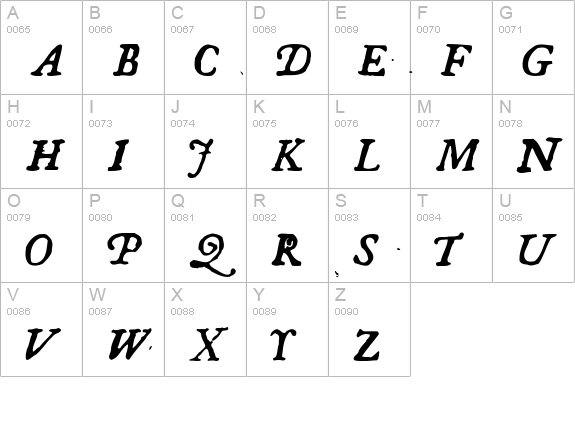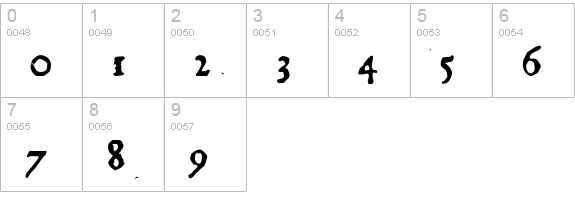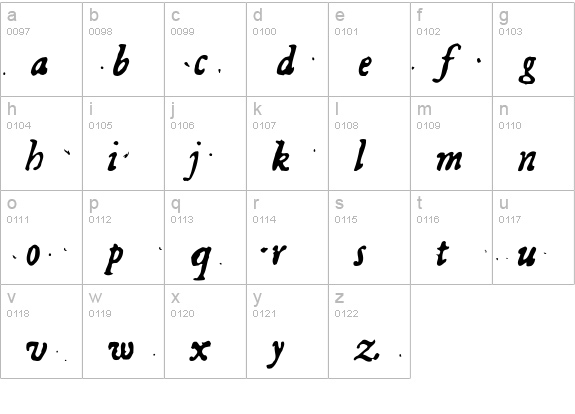
GeorgItalic font is a stunning typeface that exudes elegance and sophistication. With its sleek and stylish design, this italic font is perfect for adding a touch of class to any project. The slanted letters of GeorgItalic font create a sense of movement and flow, making it an eye-catching choice for headlines, titles, and logos. Best of all, GeorgItalic font is completely free to download at FontsMarket.com. This means that you can easily incorporate this beautiful font into your designs without breaking the bank. Whether you're working on a professional project or a personal creative endeavor, GeorgItalic font is sure to elevate your typography game. Don't miss out on this amazing opportunity to enhance your designs with this exquisite italic font - download GeorgItalic today!